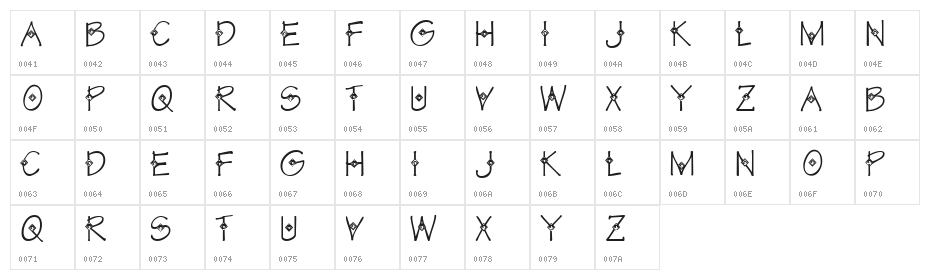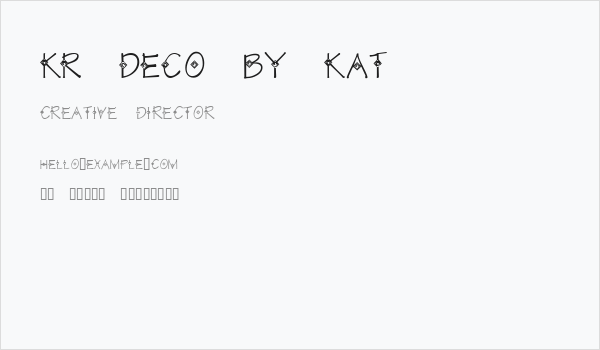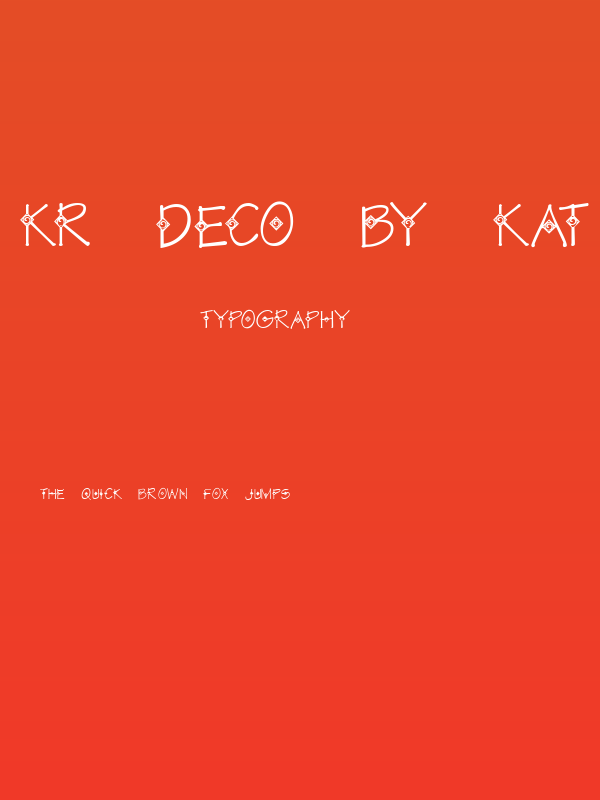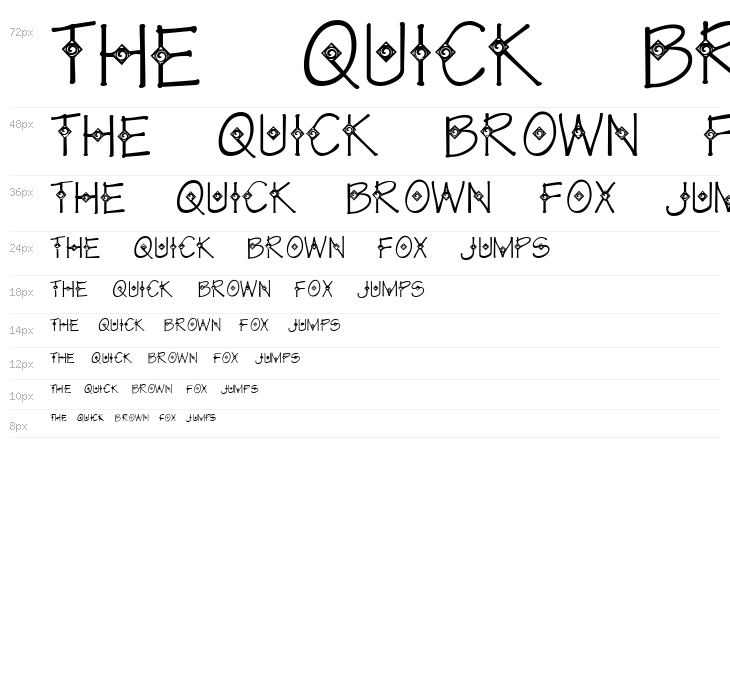
KR Deco by Kat Font
KR Deco by Kat Description
This font features a unique and decorative style, characterized by its intricate geometric patterns within each letter. The uppercase letters are embellished with diamond-shaped motifs, adding an artistic flair. The strokes are bold and consistent, providing a strong visual impact. The design is reminiscent of Art Deco influences, with a modern twist that makes it suitable for creative and eye-catching projects. The overall appearance is both elegant and playful, making it ideal for use in designs that require a touch of sophistication and creativity.
| Proposed Projects | Ideal for branding, posters, invitations, and any project requiring a decorative and artistic touch. |